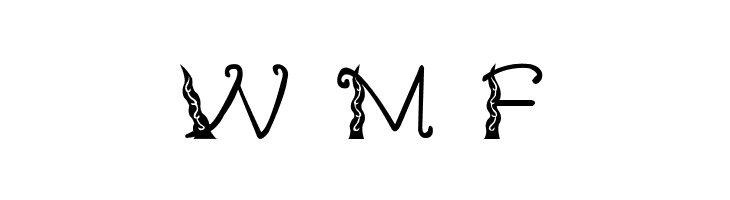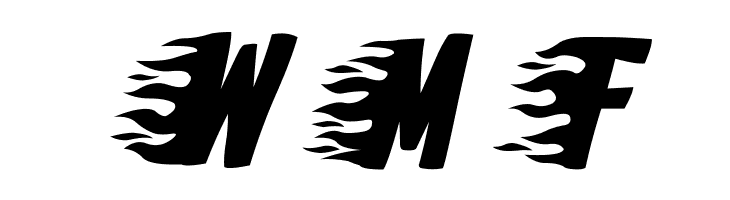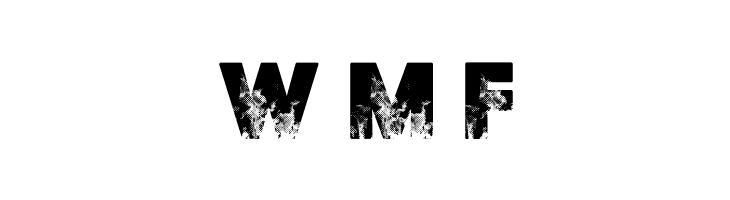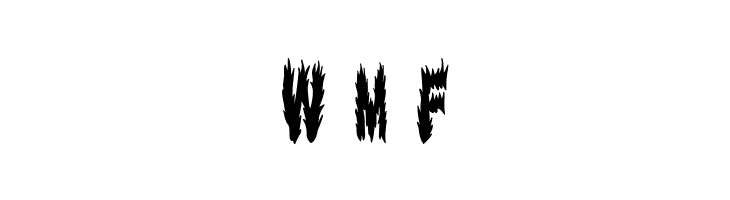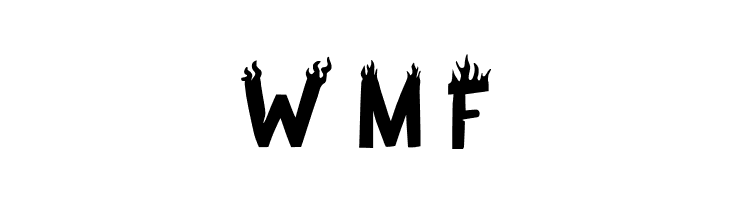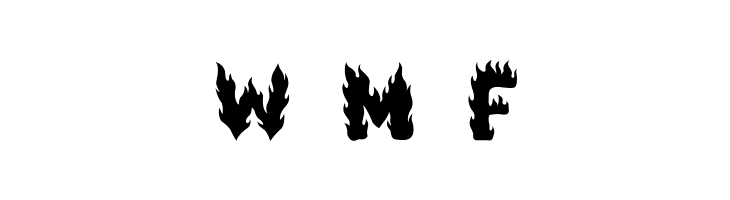
A bold, flame-inspired decorative font with jagged, dynamic strokes.
A bold, flame-themed decorative font with a condensed and dynamic style.
A bold, flame-inspired font with a dynamic and energetic style.
A bold, flame-adorned font perfect for dramatic and impactful designs.
A bold, flame-inspired font with dynamic, jagged edges.
A fiery, dynamic font with sharp, jagged edges resembling flames.
A bold, jagged font with a fiery, energetic design.
A bold, flame-inspired font with jagged edges and a dynamic appearance.
A bold, 3D font with flame accents and a playful, dynamic style.
A bold, flame-inspired decorative font with dynamic, jagged edges.
A bold, flame-themed font with a dynamic, energetic style.
A decorative font with flame-like patterns and a bold, artistic style.
A bold, flame-themed font with a dynamic and energetic style.
A bold, flame-inspired font with jagged, dynamic characters.
A bold, energetic font with a fiery, dynamic design.
A rugged, distressed font with a fiery, organic appearance.
A bold, aggressive font with sharp, jagged edges and a dynamic, fiery style.
A bold, flame-themed decorative font with textured, uppercase letters.
A bold, distressed font with a fiery texture, ideal for impactful designs.
A bold, flame-inspired font with dynamic, jagged edges.
A bold, flame-themed font with thick strokes and dynamic energy.
A bold, flame-inspired font with sharp, angular strokes and dynamic energy.
A bold, flame-themed decorative font with high visual impact.
A bold, flame-inspired font with dramatic, pointed serifs and intense visual impact.